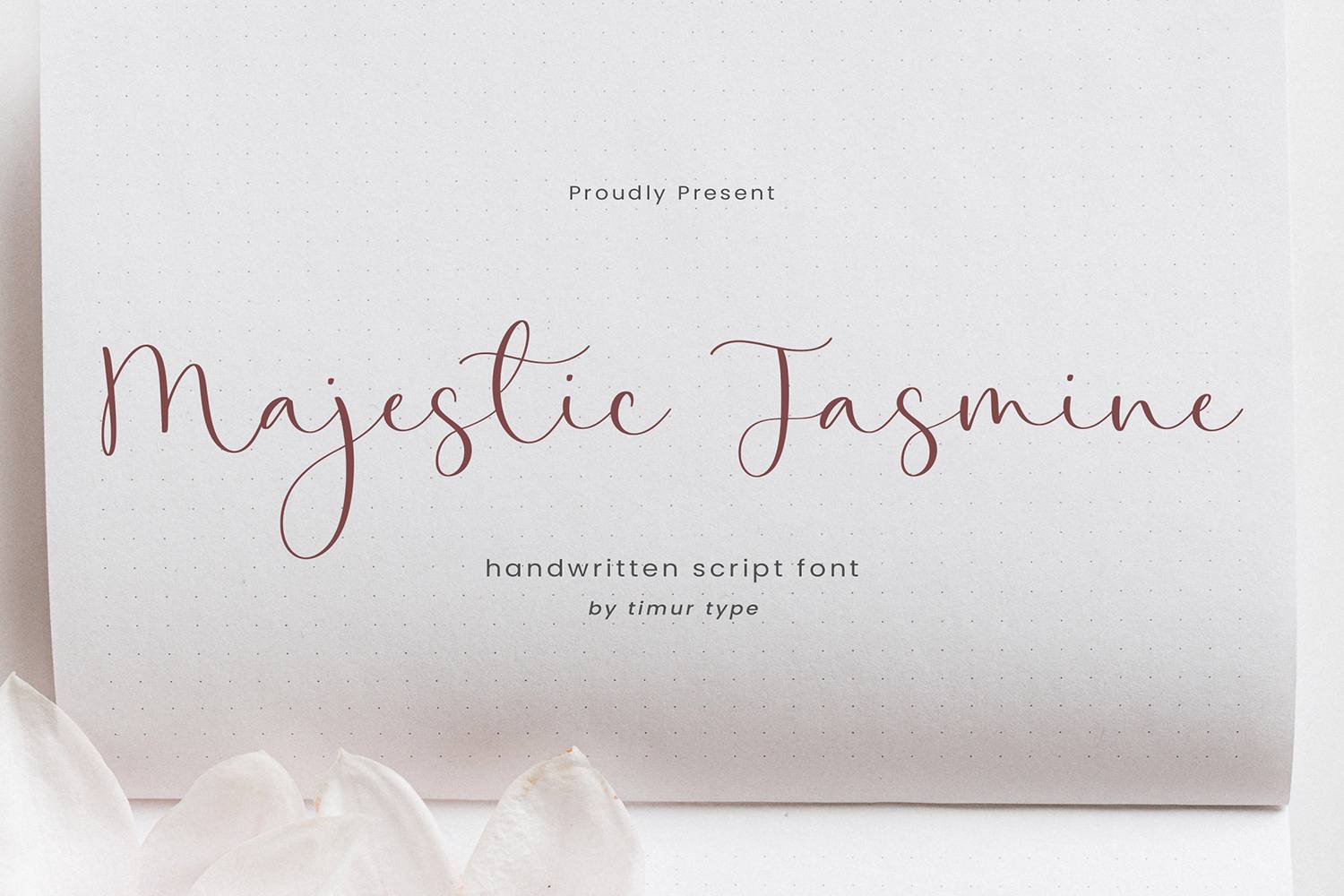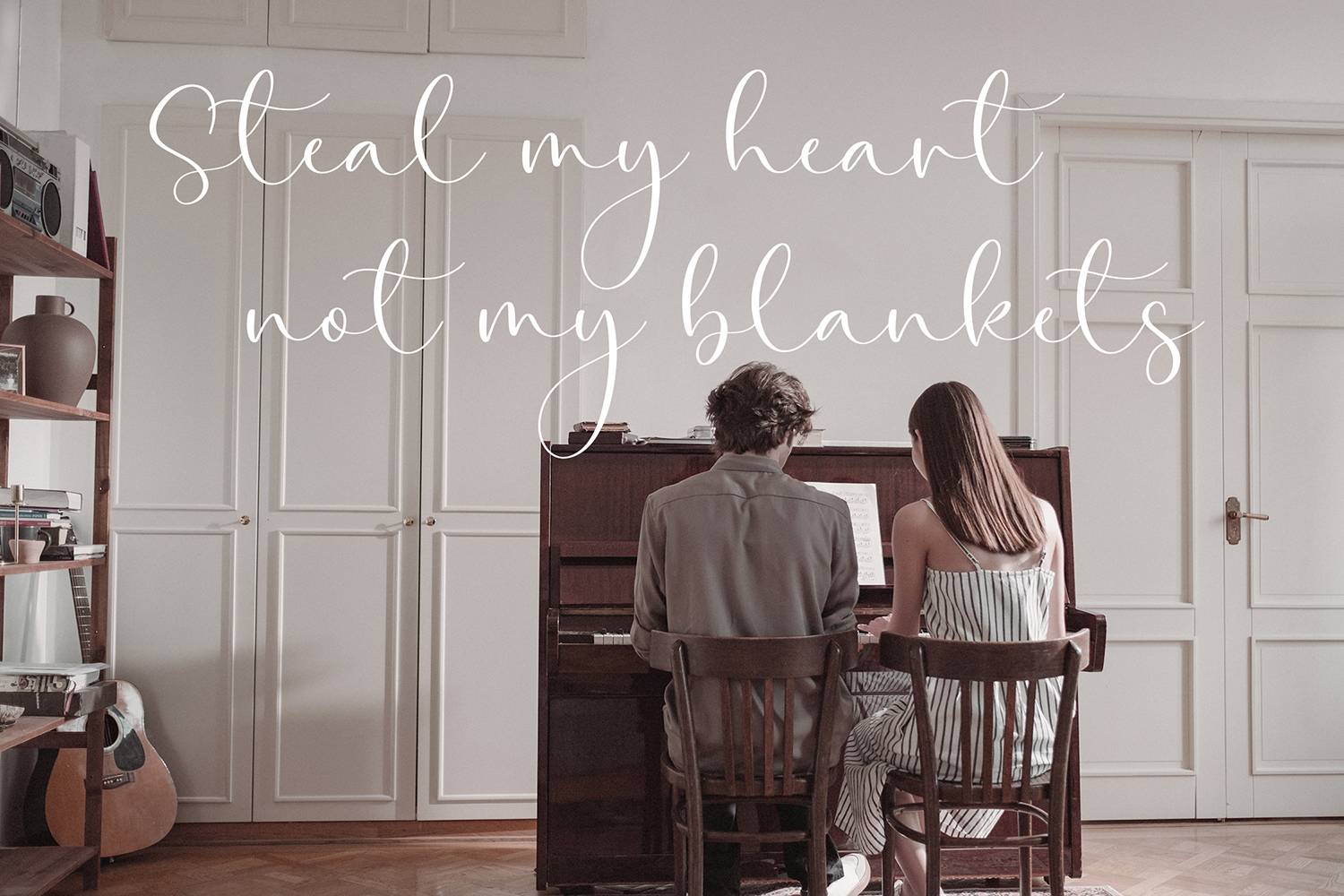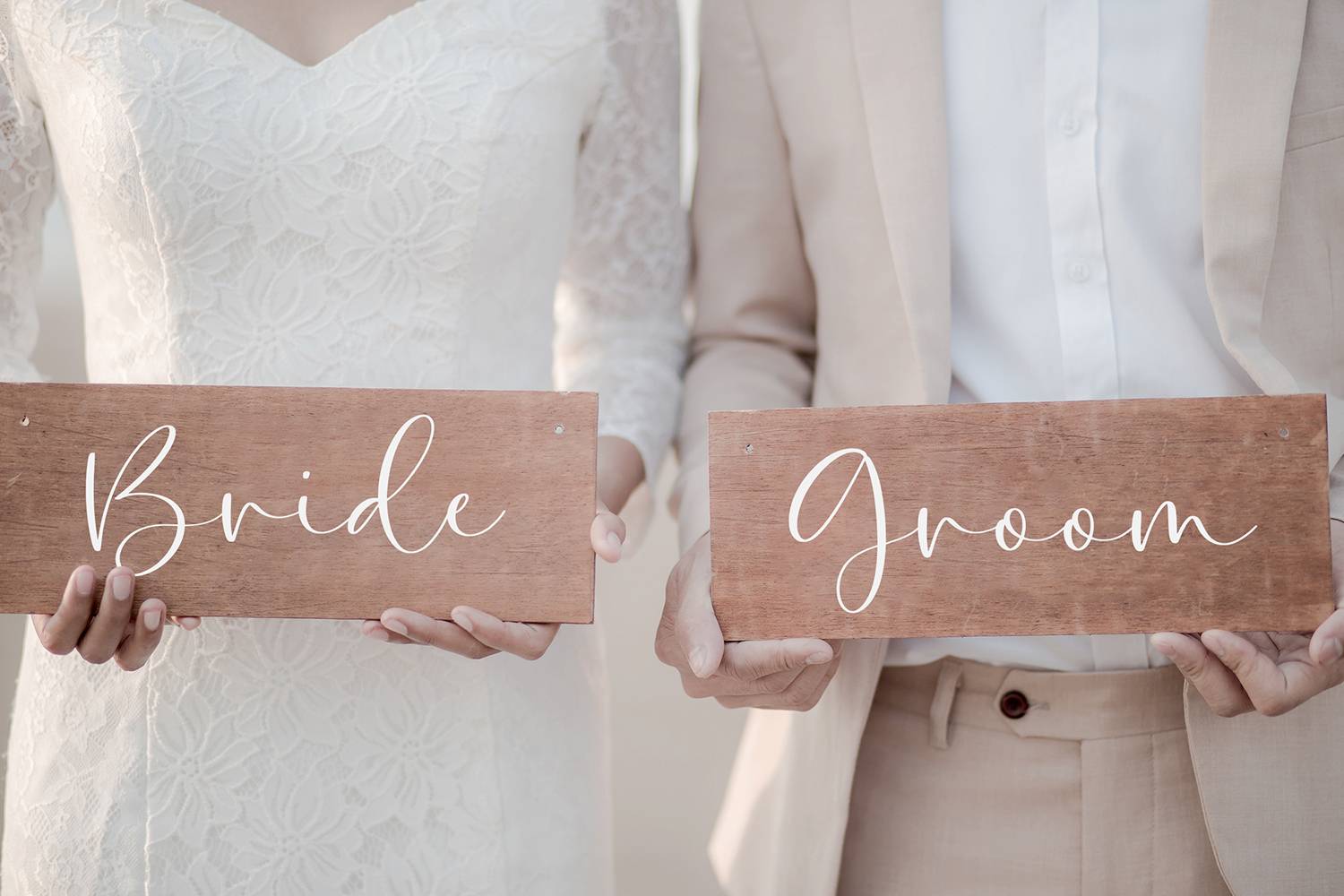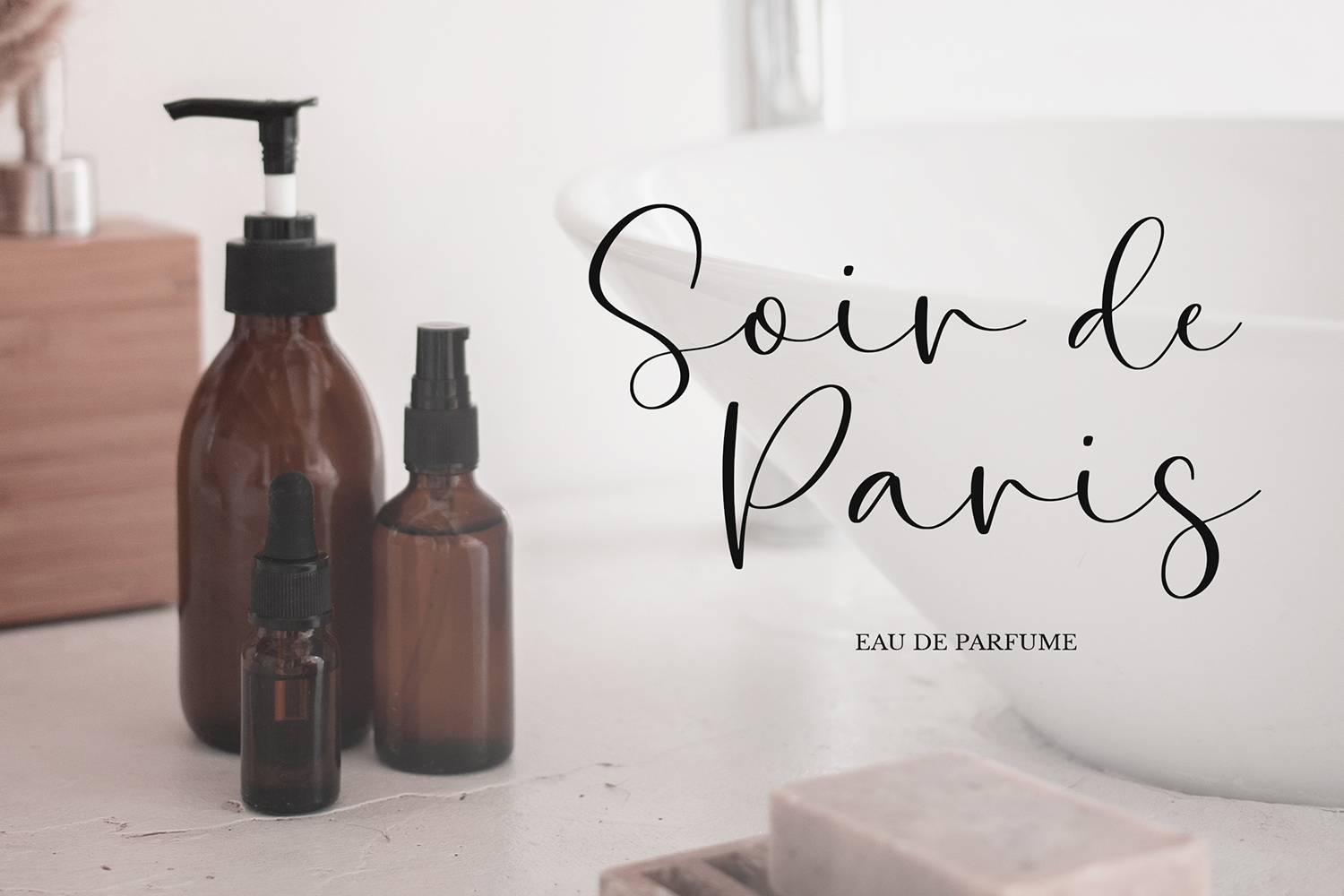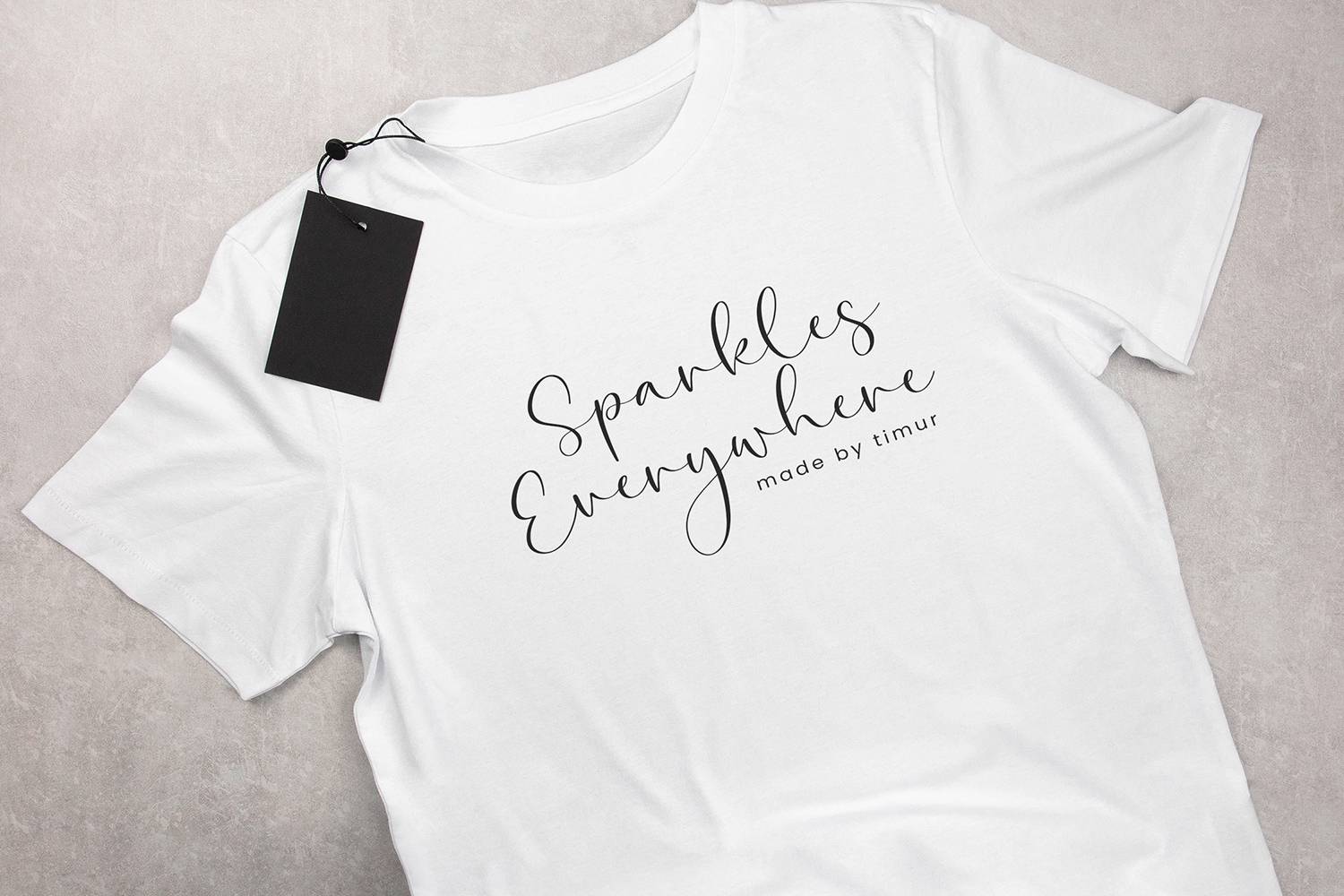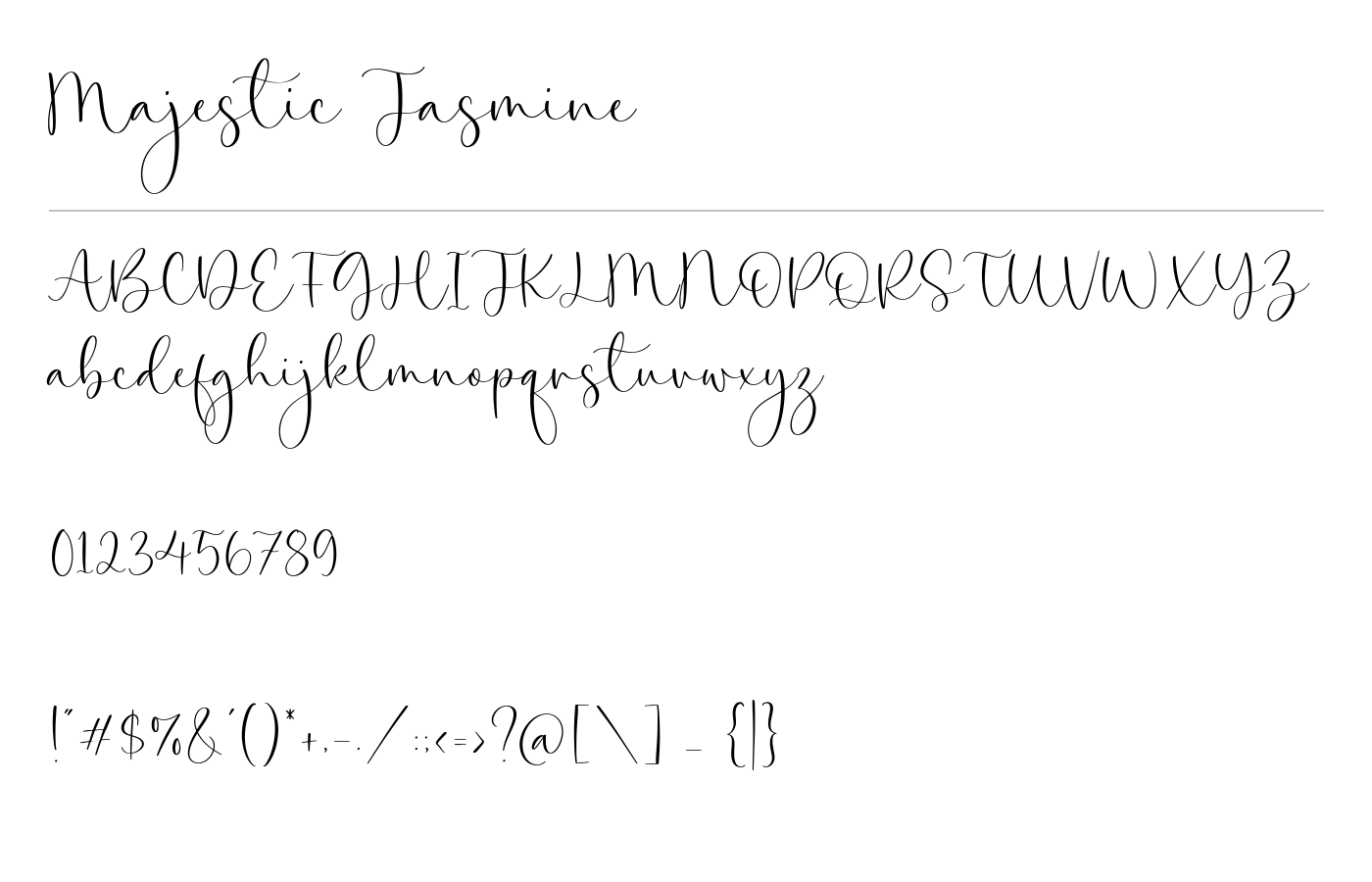
Majestic Jasmine is a delicate and elegant script font characterized by its thin, flowing strokes and graceful curves, giving it a hand-lettered, feminine feel. It features a tall x-height with intricate swashes and loops that add a charming, whimsical touch, making it ideal for wedding invitations, fashion branding, and other decorative uses where a romantic and sophisticated look is desired.
Majestic Jasmine Font
About Majestic Jasmine Font